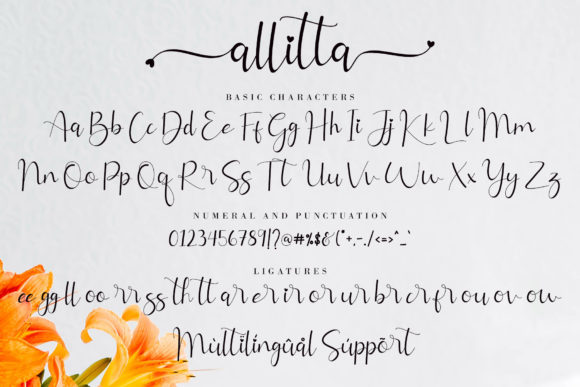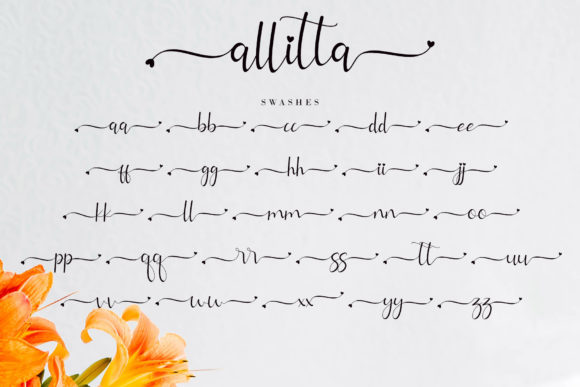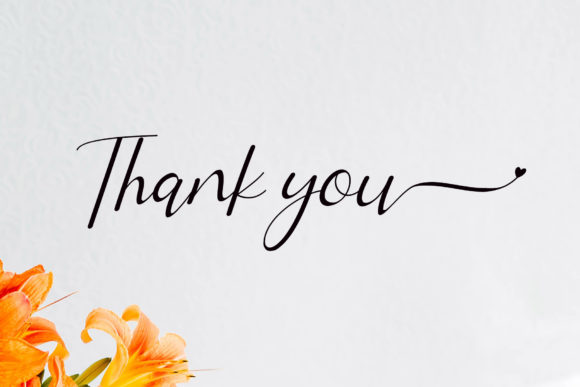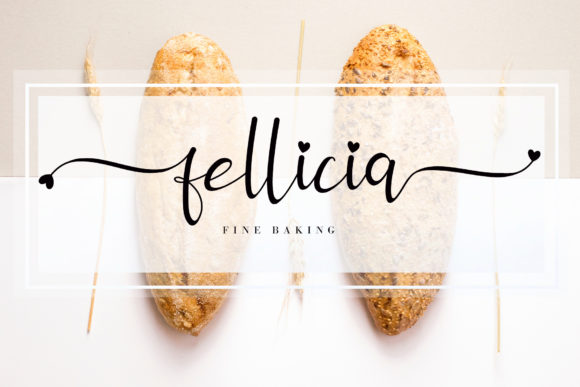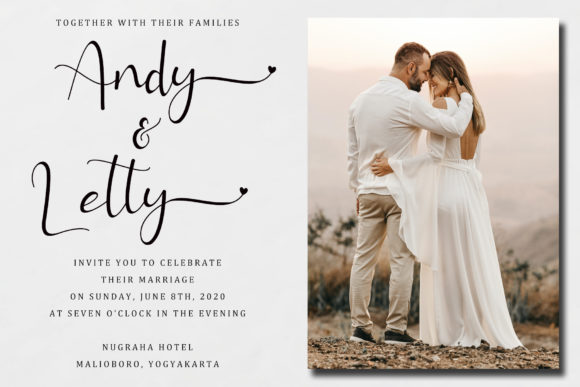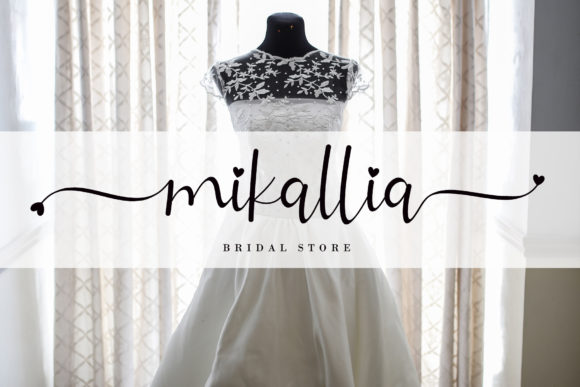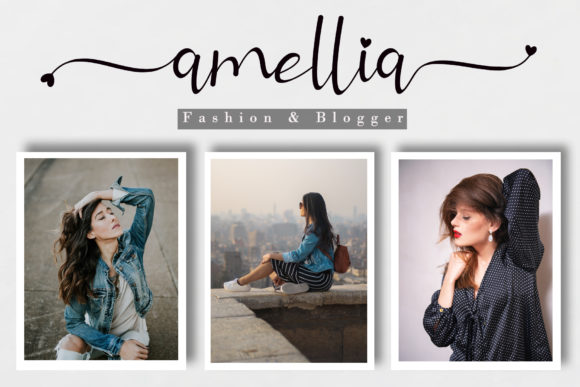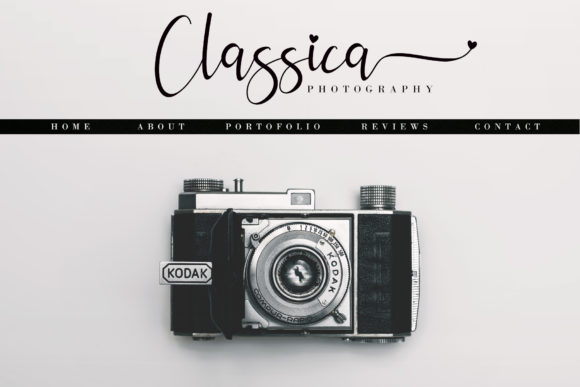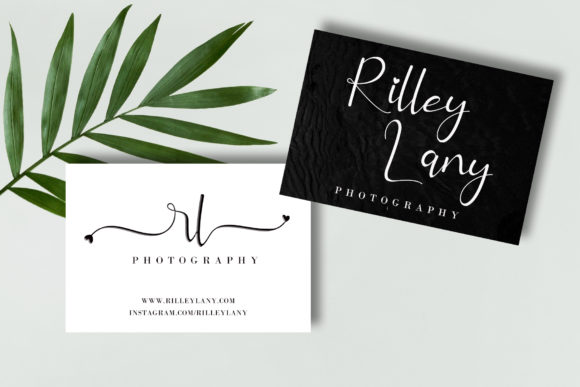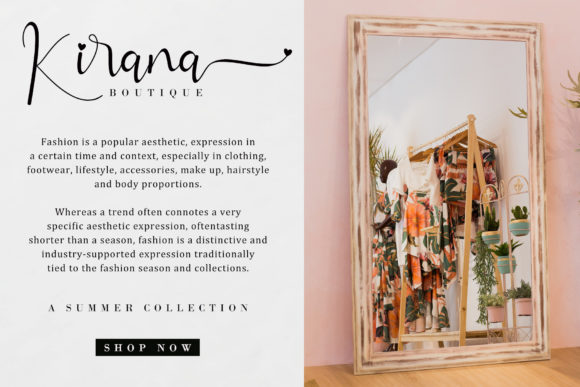
Allitta Font
About Allitta Font
Allitta is an elegant handwritten font. It features beautiful swashes that will take your projects to the next level. Fall in love with its authentic feel and use it to create gorgeous wedding invitations, beautiful stationary art, eye-catching social media posts, and cute greeting cards.